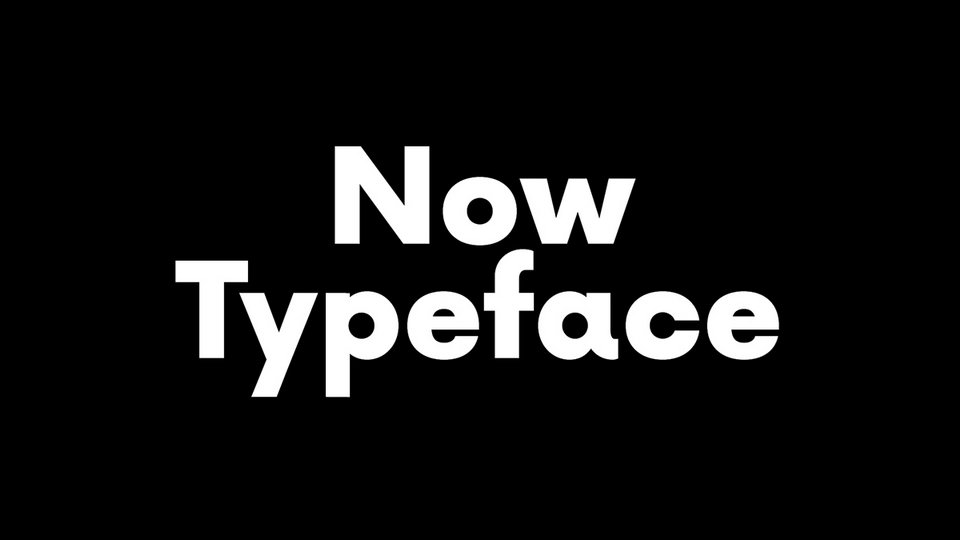
Download Now typeface, a geometric, low contrast font family of 6 fonts with a bit of character. Now is a versatile typeface and can be successfully used in magazines, posters, branding, websites etc.
Designer: Alfredo Marco Pradil